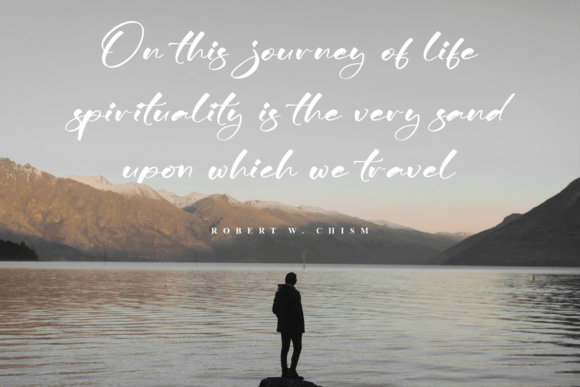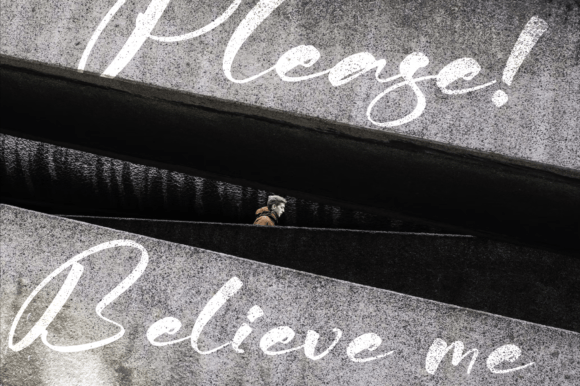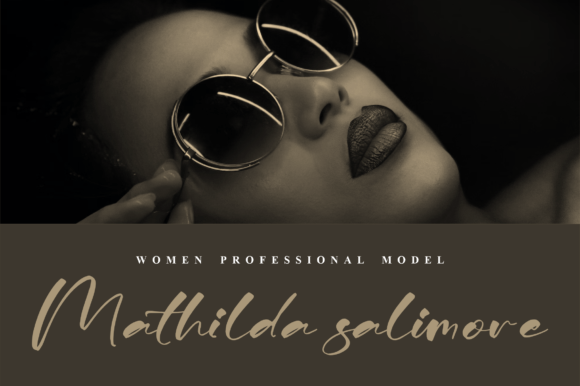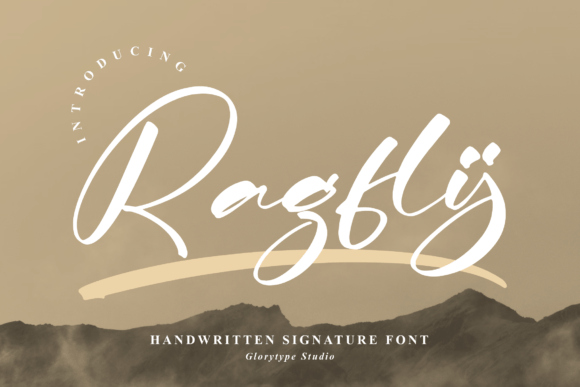
Introduction to Ragflij Font
Ragflij is a unique and elegant handwritten font.
It looks beautiful on a variety of designs requiring a personalized style, such as wedding invitations, thank you cards, greeting cards, logos, and so on .
Ragflij Font offers exceptional quality and versatility, making it a valuable addition to your design toolkit. Whether you’re creating for personal projects or commercial use, Ragflij Font delivers professional results.